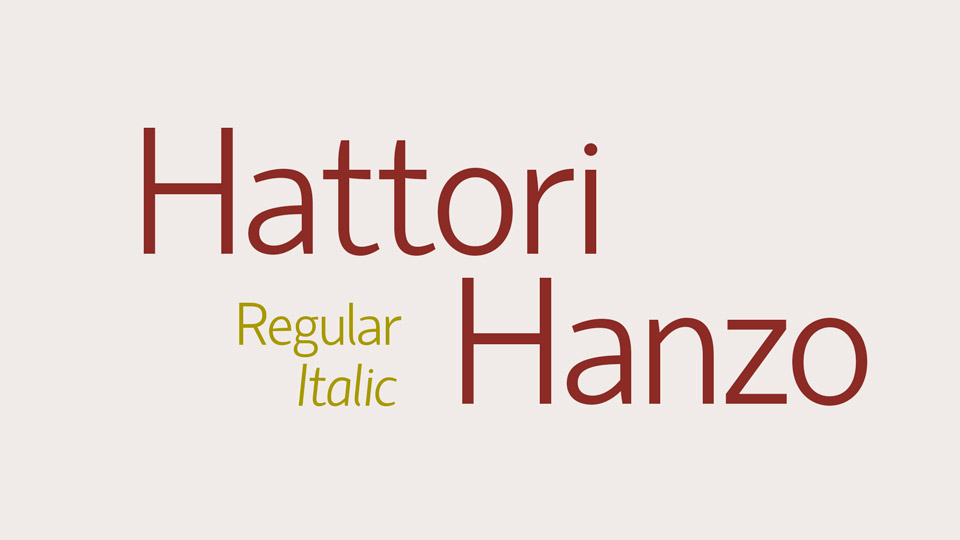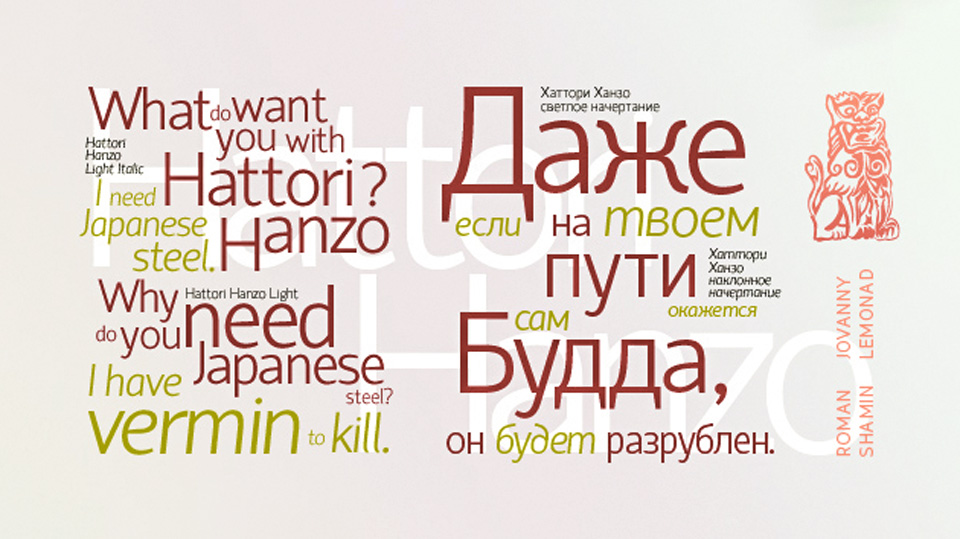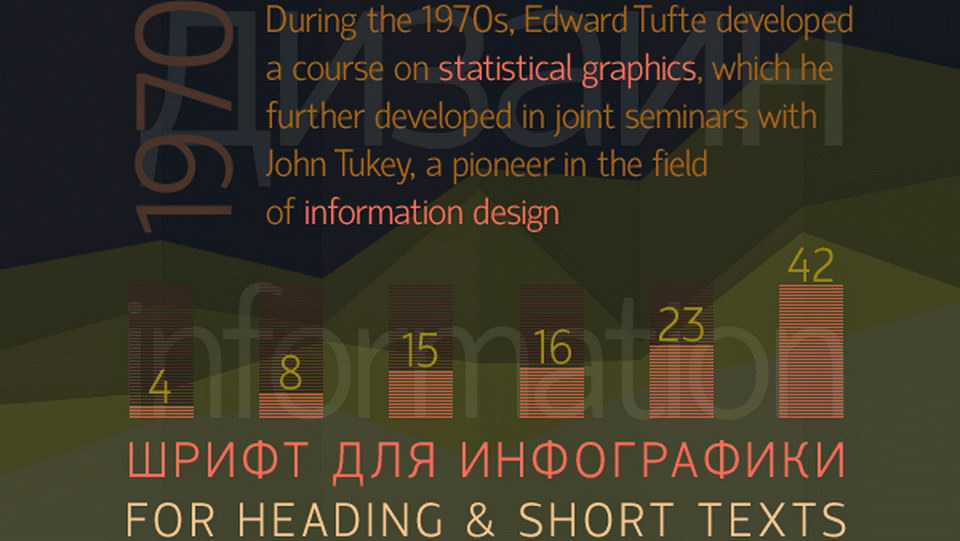
Hattori Hanzo is a clean sans serif font family. It includes Regular and Italic styles, contains a complete glyph set, including extenged language support.
Hattori Hanzo typeface created for infographics, charts and other texts.